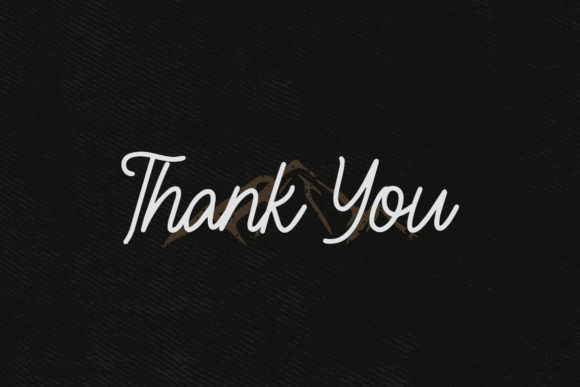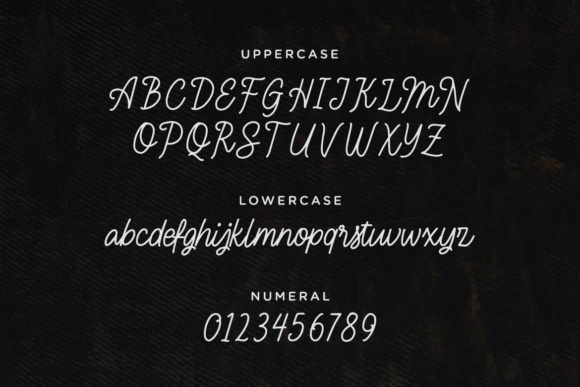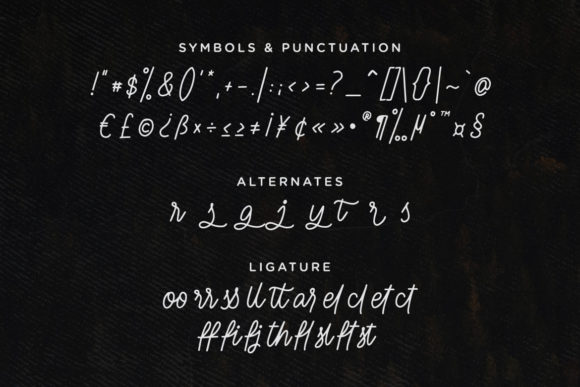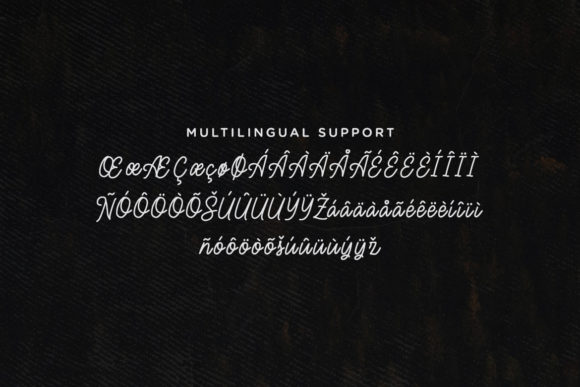
About Sensai Font
Sensai is a beautiful, well balanced and vintage styled script font. It is defined by smooth curves and is perfect for fashion branding or editorial designs. Sensai is PUA encoded which means you can access all of the amazing glyphs and ligatures with ease!